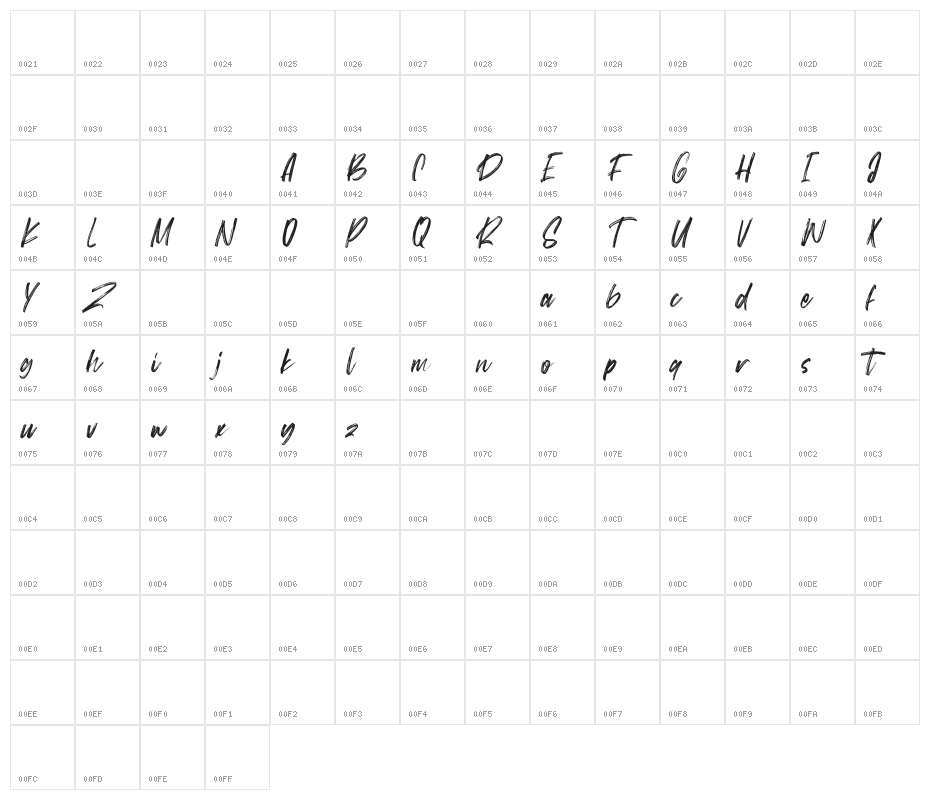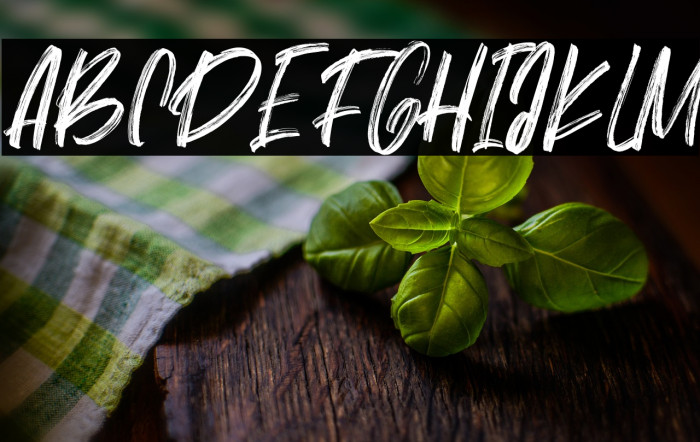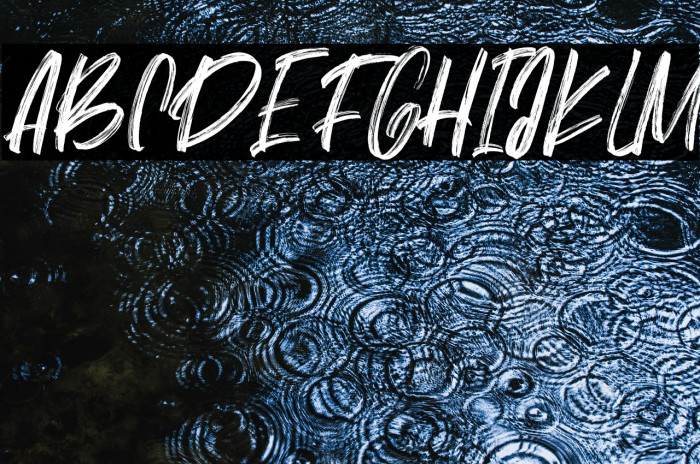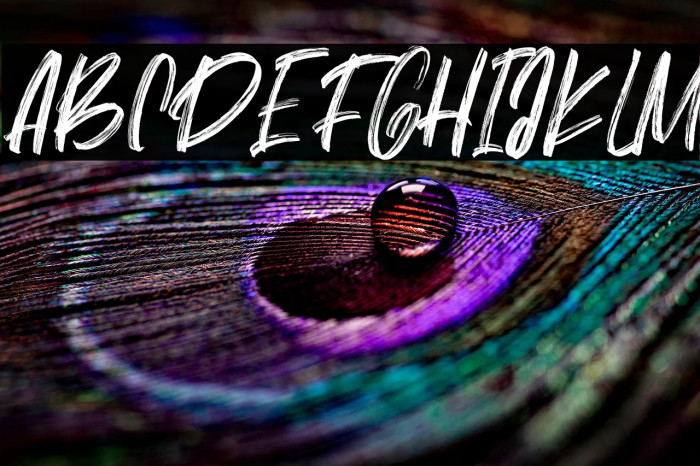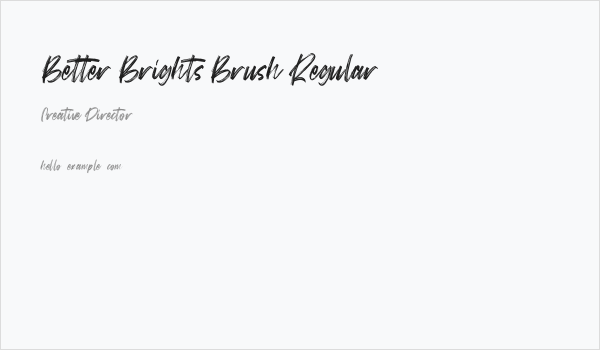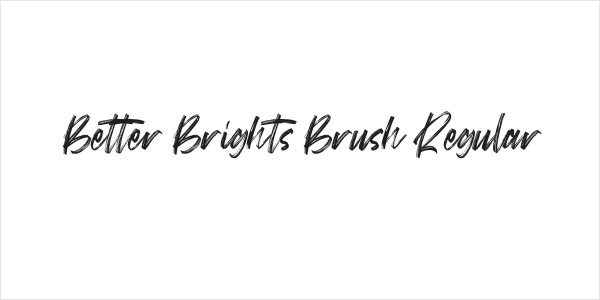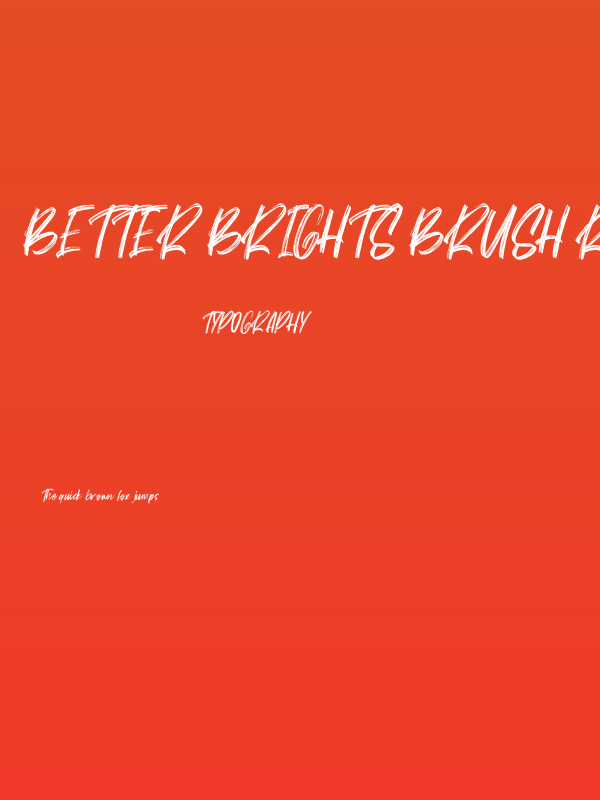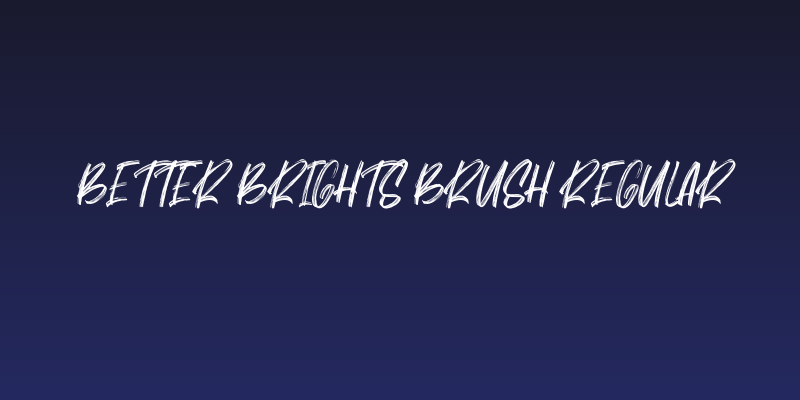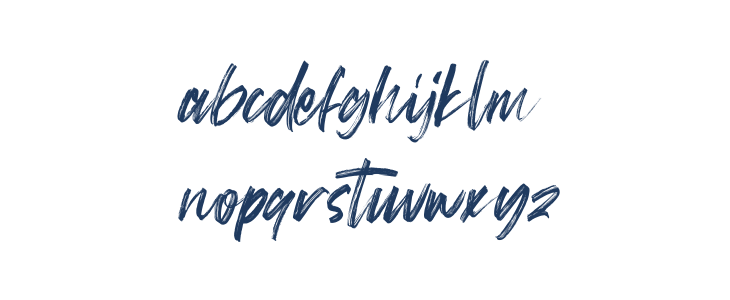
Better Brights Brush Regular Font
Better Brights Brush Regular Description
This font exudes a dynamic and energetic vibe, characterized by its bold, brush-like strokes that create a sense of movement and fluidity. The letters are crafted with a hand-painted appearance, giving it an authentic and artistic feel. The uppercase and lowercase letters maintain a consistent style, with varying stroke thickness that adds depth and texture. The overall design is expressive and slightly irregular, enhancing its handcrafted look. This font is perfect for projects that require a personal touch or a creative flair.
| Proposed Projects | Ideal for branding, posters, social media graphics, and creative projects that require a bold, artistic touch. |